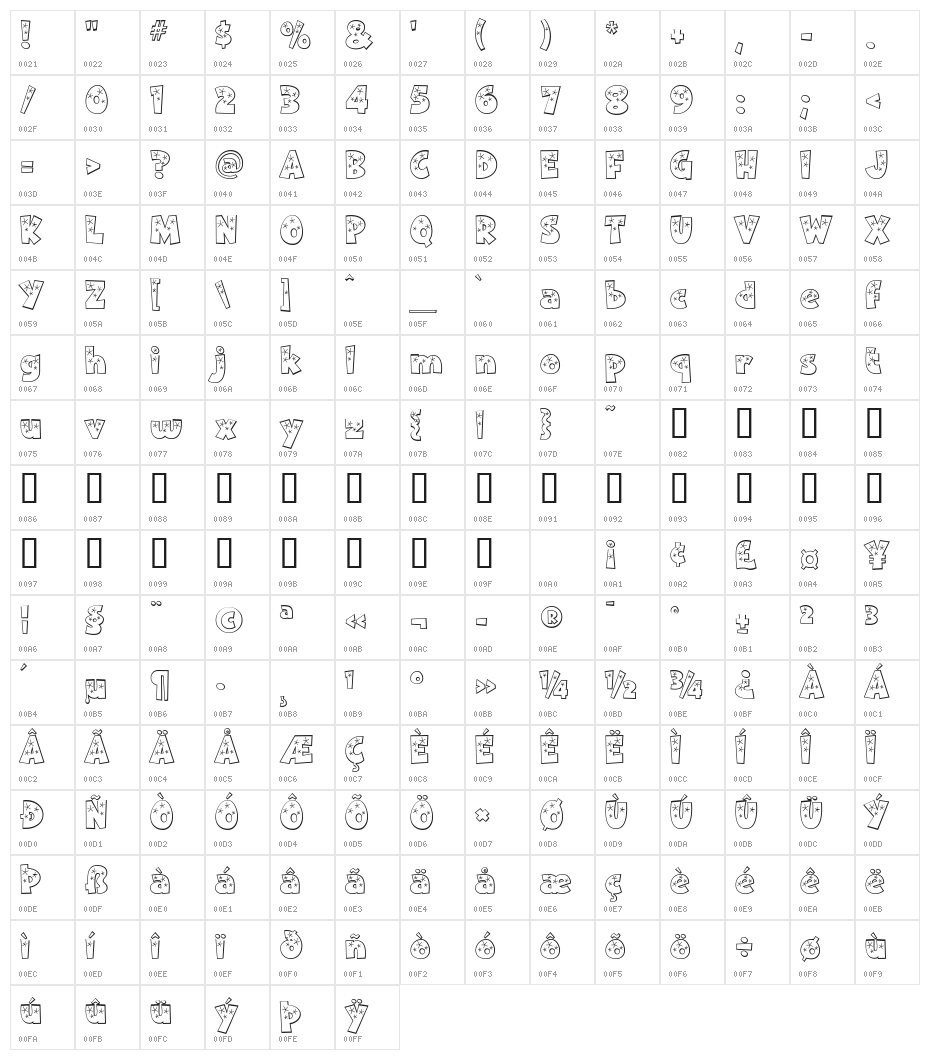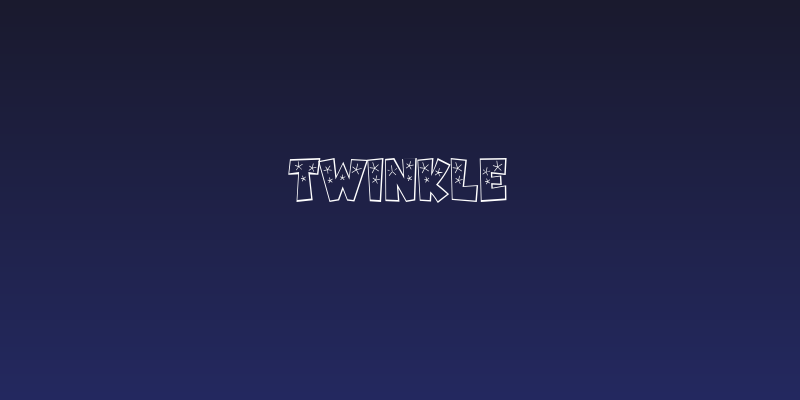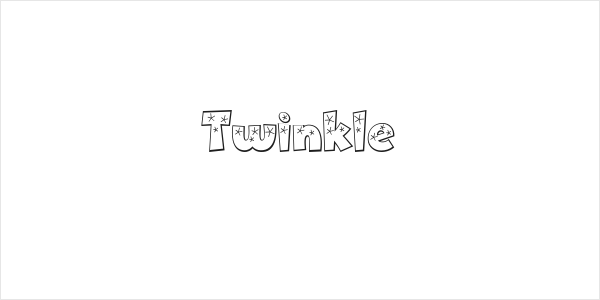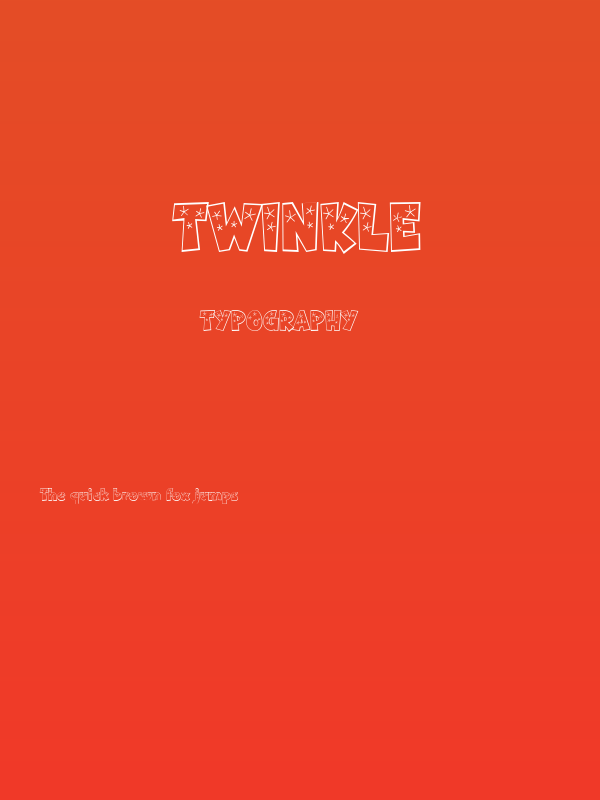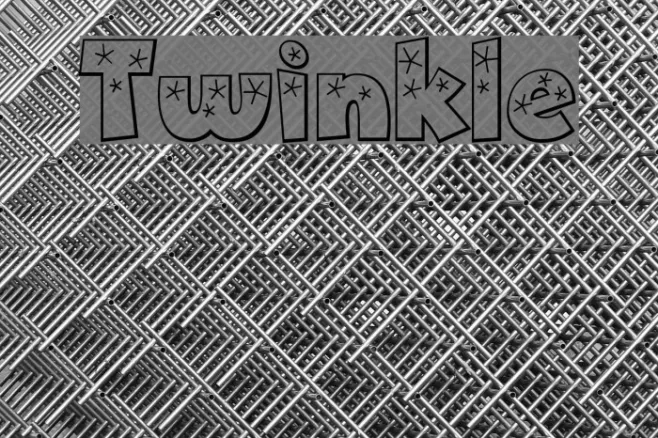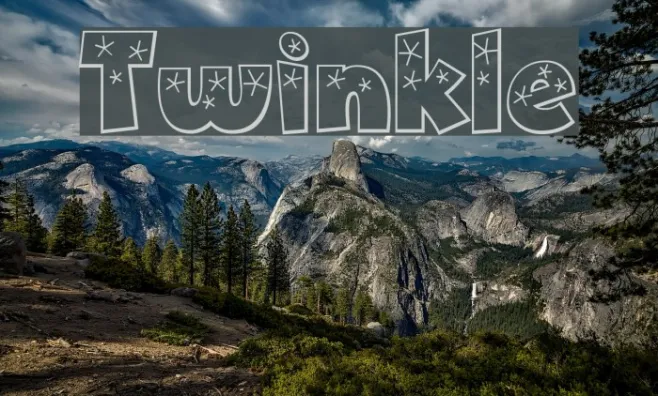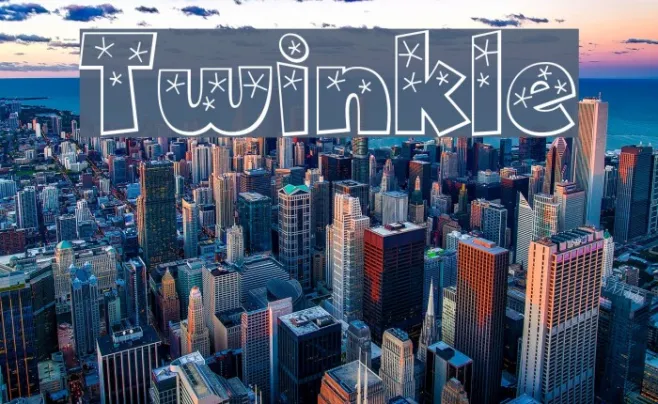
Twinkle Font
Twinkle Description
This playful and whimsical font features bold, chunky letters adorned with star-like decorations inside each character. The design is reminiscent of a fun, cartoonish style that captures attention with its unique and lively appearance. Each letter is outlined, adding to the boldness and making it stand out against any background. The font maintains a consistent weight throughout, providing a balanced and cohesive look. The inclusion of stars within the letters adds a decorative element that enhances its playful nature, making it ideal for projects that require a touch of creativity and fun.
| Overall Style | Playful, Whimsical, Decorative |
| Proposed Projects | Ideal for children's books, party invitations, playful branding, and creative posters. |